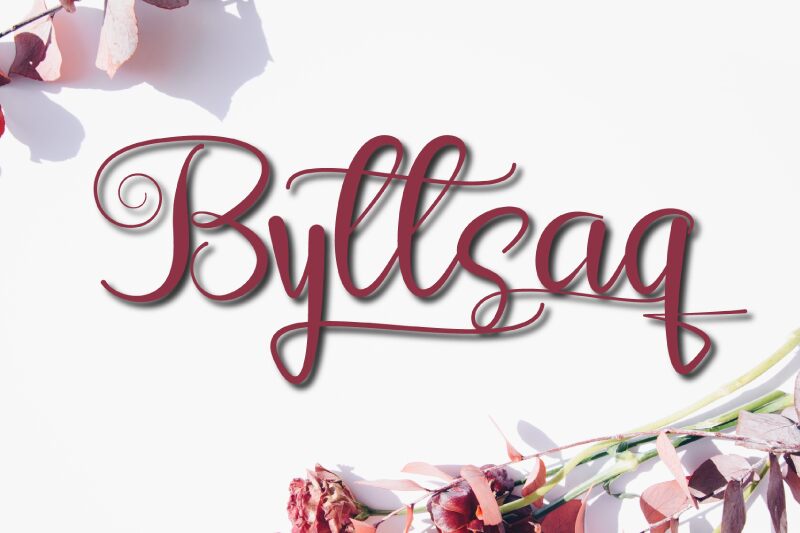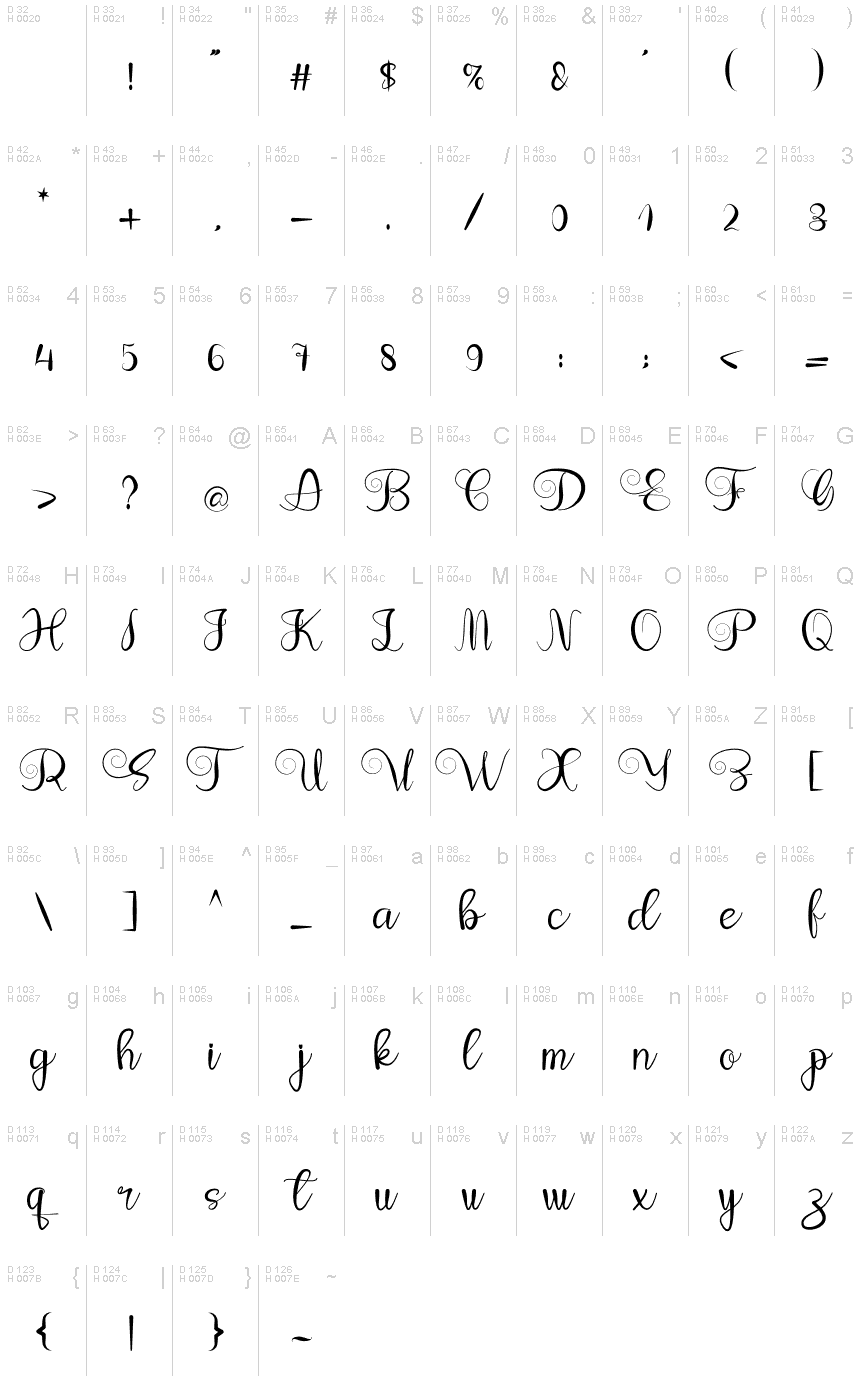
Byttsaq
Byttsaq, the exquisite calligraphy font designed by Design Vector10, is a perfect addition to any design project that requires elegance and sophistication. Its semi-light weight exudes a delicate touch while retaining its legibility. This font is ideal for wedding invitations, luxury branding, and editorial designs, among other projects where an air of gracefulness is imperative. Byttsaq's fluid strokes create a harmonious blend of traditional calligraphy with modern design sensibilities, making it suitable for contemporary projects as well. Elevate your designs with Byttsaq's timeless beauty and bring your creative visions to life.